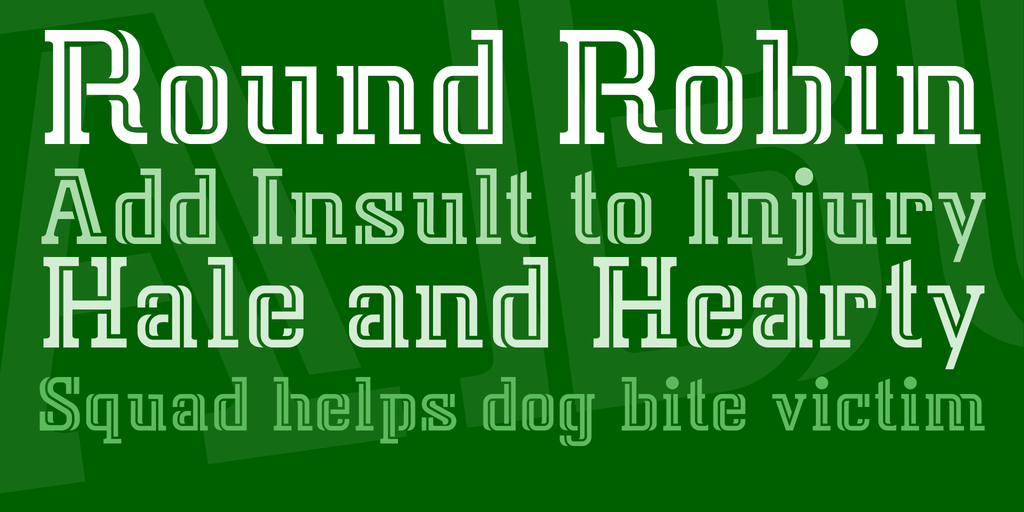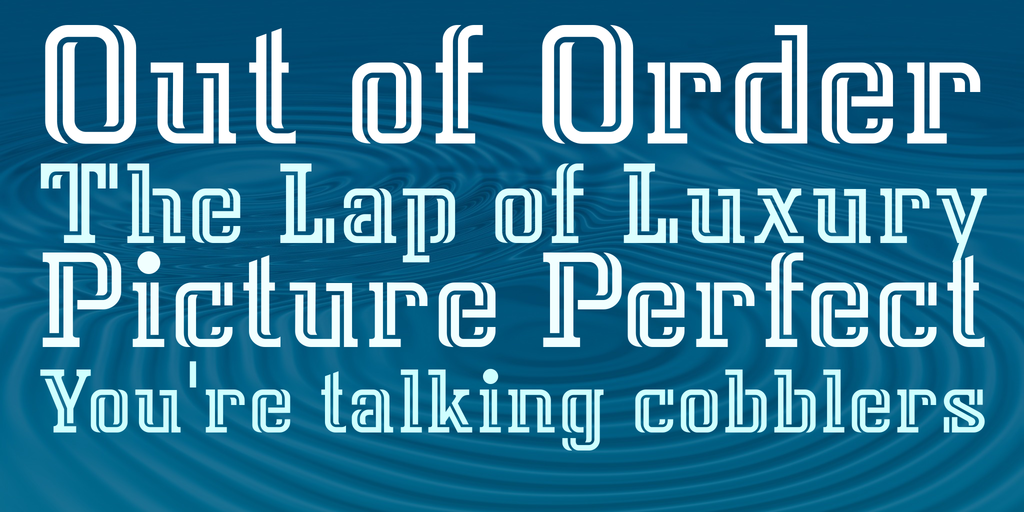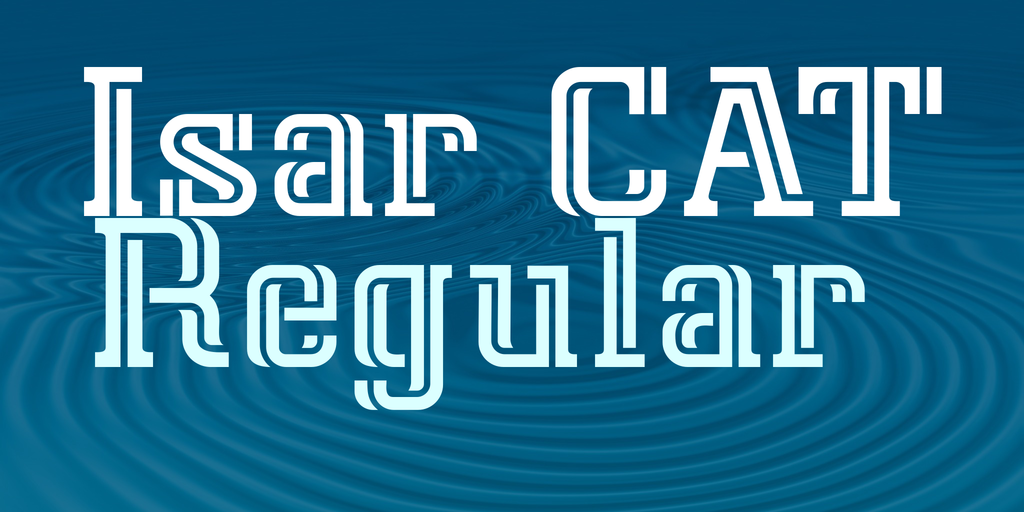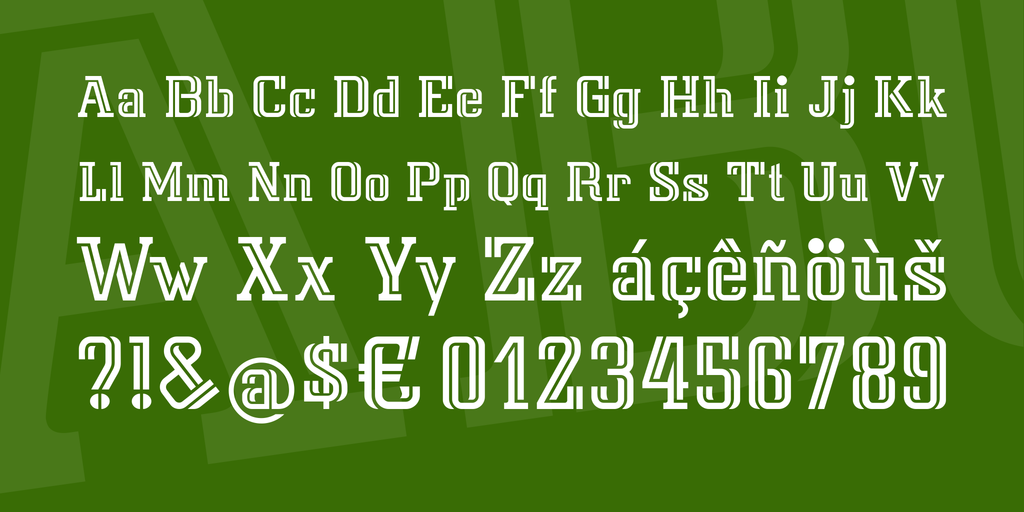
Isar CAT Font
Translation of the original German description: With Isar CAT I once again created a display font that goes far beyond the typical language coverage. With 1151 glyphs in the 3 major European alphabets, Latin, Greek and Cyrillic it is possible to cover virtually any European language and far beyond. And none of the manifold characters were automatically digitized from a scanned draft, they were drawn carefully by hand, glyph for glyph. Please donate if you like this font!